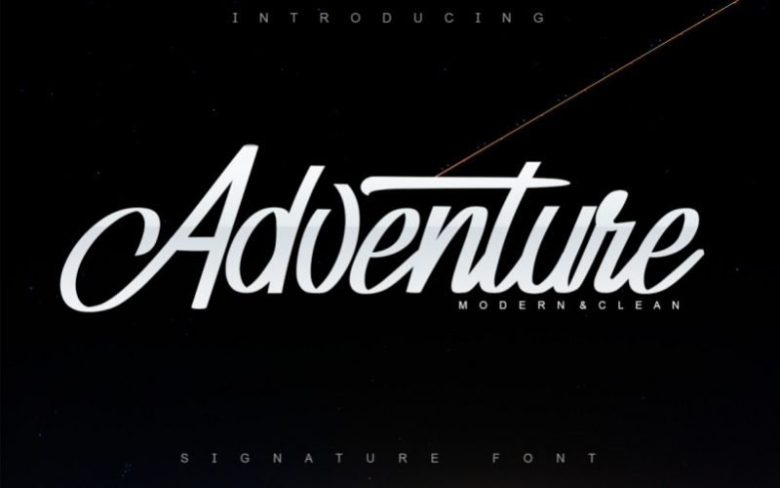
Adventure Calligraphy Font
Introducing Adventure A cool, classy, modern, clean, is guaranteed to add an eye-catching appeal to your logo designs, brand imagery, handwritten quotes, product packaging, merchandise & social media posts and any more.